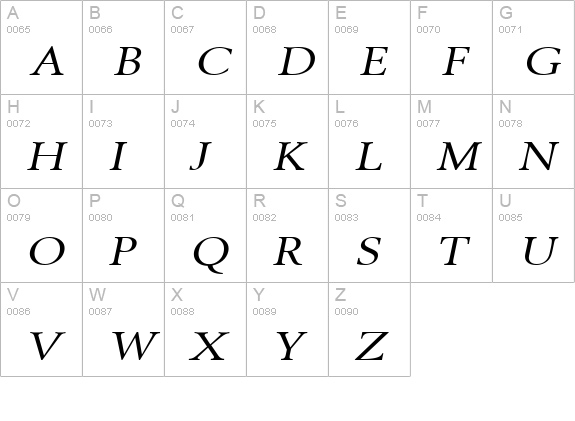
Revive 8 Wide Italic Font Details
Revive 8 Wide Italic is a distinctive, extended-width, italic variant in the Revive typeface family \xE2\x80\x94 well suited to design and typography projects.
Revive 8 Wide Italic font is a stunning typeface that effortlessly combines modernity with a touch of elegance. Its sleek and bold design showcases a unique twist on the traditional italic style, making it perfect for adding a touch of sophistication to any design project. With its wide proportions, Revive 8 Wide Italic font commands attention and stands out from the crowd. The carefully crafted letterforms exude a sense of confidence and strength, making it an excellent choice for headlines, branding, and advertising materials. What makes Revive 8 Wide Italic font even more appealing is that it is available for free! Yes, you read that right – this remarkable font is freely available to download at FontsMarket.com. This means that designers, creatives, and enthusiasts alike can access this incredible typeface without having to spend a penny. Whether you are a professional designer looking to elevate your projects or a hobbyist wanting to experiment with typography, Revive 8 Wide Italic font is the perfect choice. Its versatility allows it to be used in a wide range of applications, from digital designs to print materials. With its clean and legible letterforms, Revive 8 Wide Italic font is exceptionally versatile, making it suitable for both small and large sizes. The italic style adds a dynamic flair to the text, creating a sense of movement and energy. Whether you're designing a logo, a poster, or a website, Revive 8 Wide Italic font is sure to make a lasting impression. Its modern yet timeless design will captivate your audience and convey your message with style. Download Revive 8 Wide Italic font for free at FontsMarket.com and experience the power of this exceptional typeface. Don't miss out on the opportunity to add a touch of sophistication to your designs without breaking the bank.